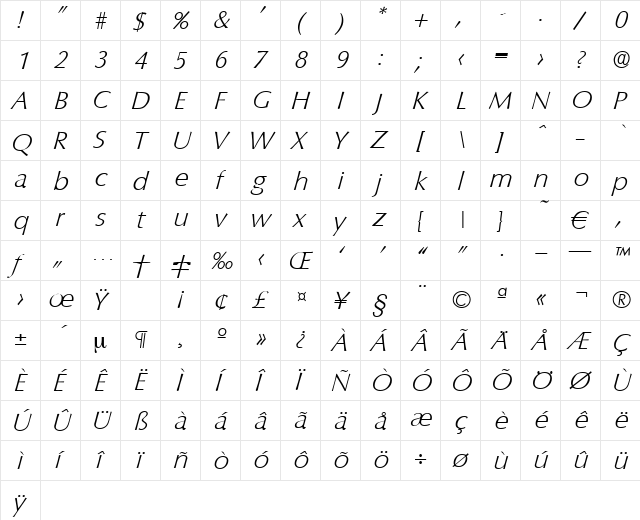
Columbia-XlightIta Regular Font Preview
Columbia-XlightIta Regular
Columbia-XlightIta Regular Font Details
Design Context for Columbia-XlightIta Typeface
Columbia-XlightIta takes a measured approach to typography — its balanced proportions and neutral character make it a reliable workhorse for both digital and print work. The delicate stroke weight brings airiness and refinement to layouts.